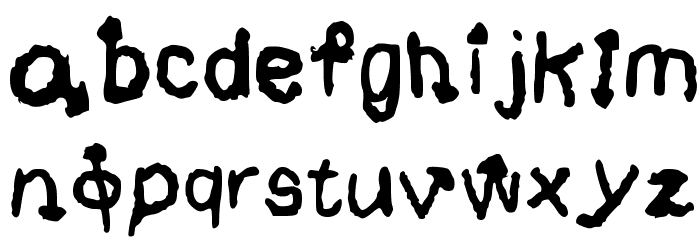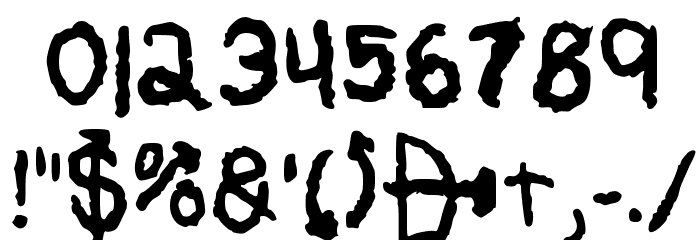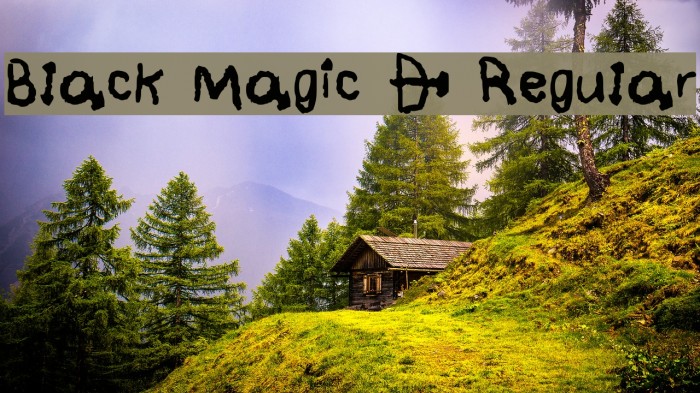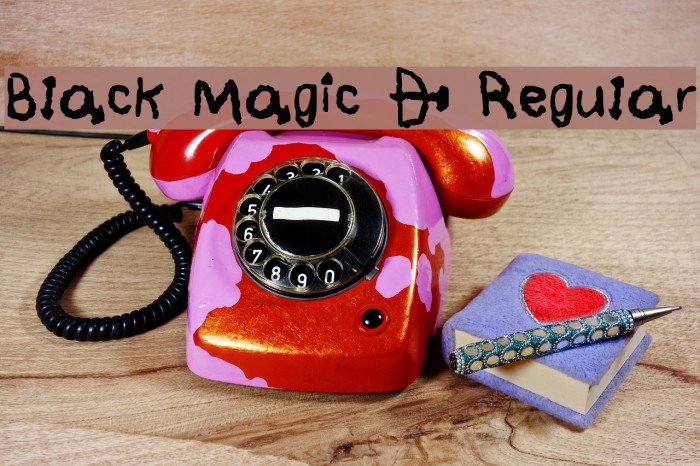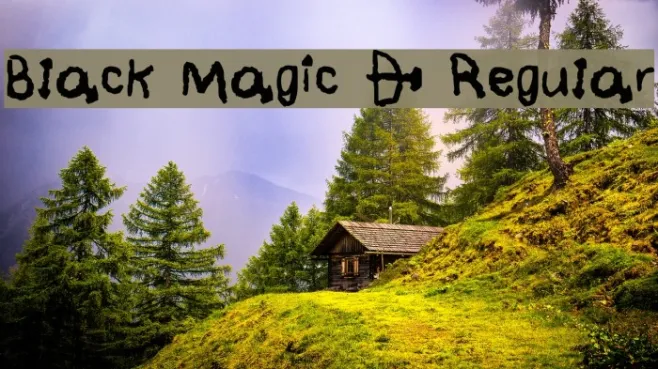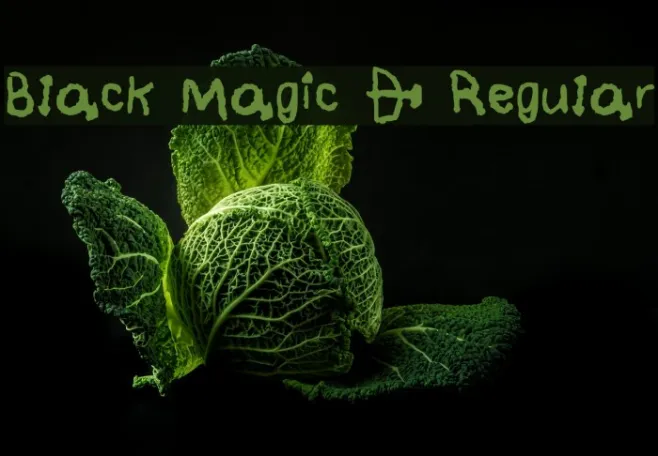
Black Magic * Regular Font
This font exhibits a unique, hand-drawn style with irregular, bold strokes that give it a mystical and slightly chaotic appearance. The characters are unevenly shaped, with varying thicknesses that create a dynamic and energetic feel. The uppercase and lowercase letters maintain a consistent style, with exaggerated curves and angles that enhance its whimsical nature. The numbers and special characters follow the same design principles, ensuring a cohesive look across all glyphs. This font's distinctive style makes it stand out, ideal for projects that require a touch of the unconventional or mysterious.
A bold, hand-drawn font with irregular strokes and a mystical, chaotic style.
- Proposed Projects: Ideal for Halloween-themed designs, fantasy book covers, game titles, or any project needing a mysterious and unconventional touch.